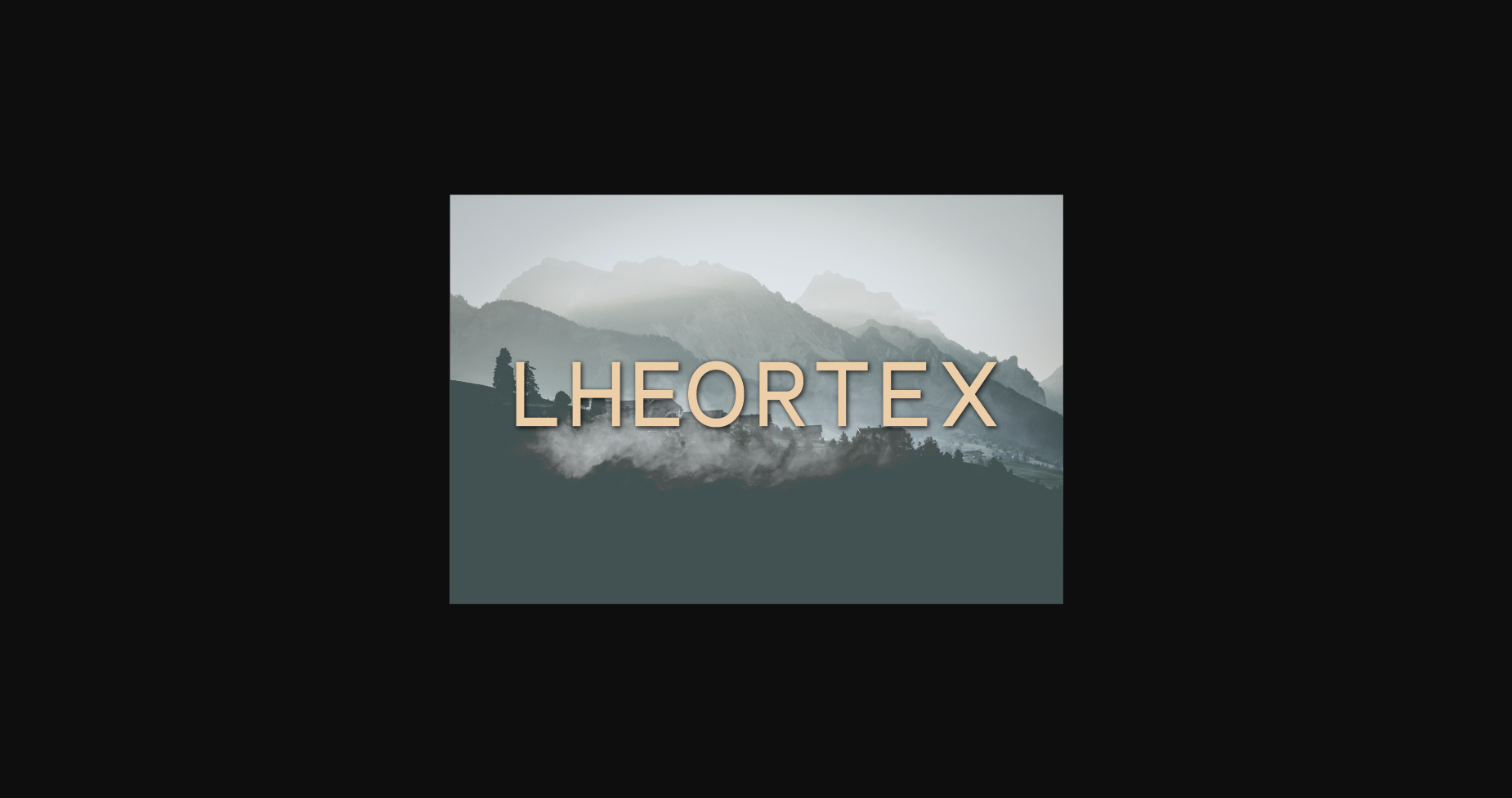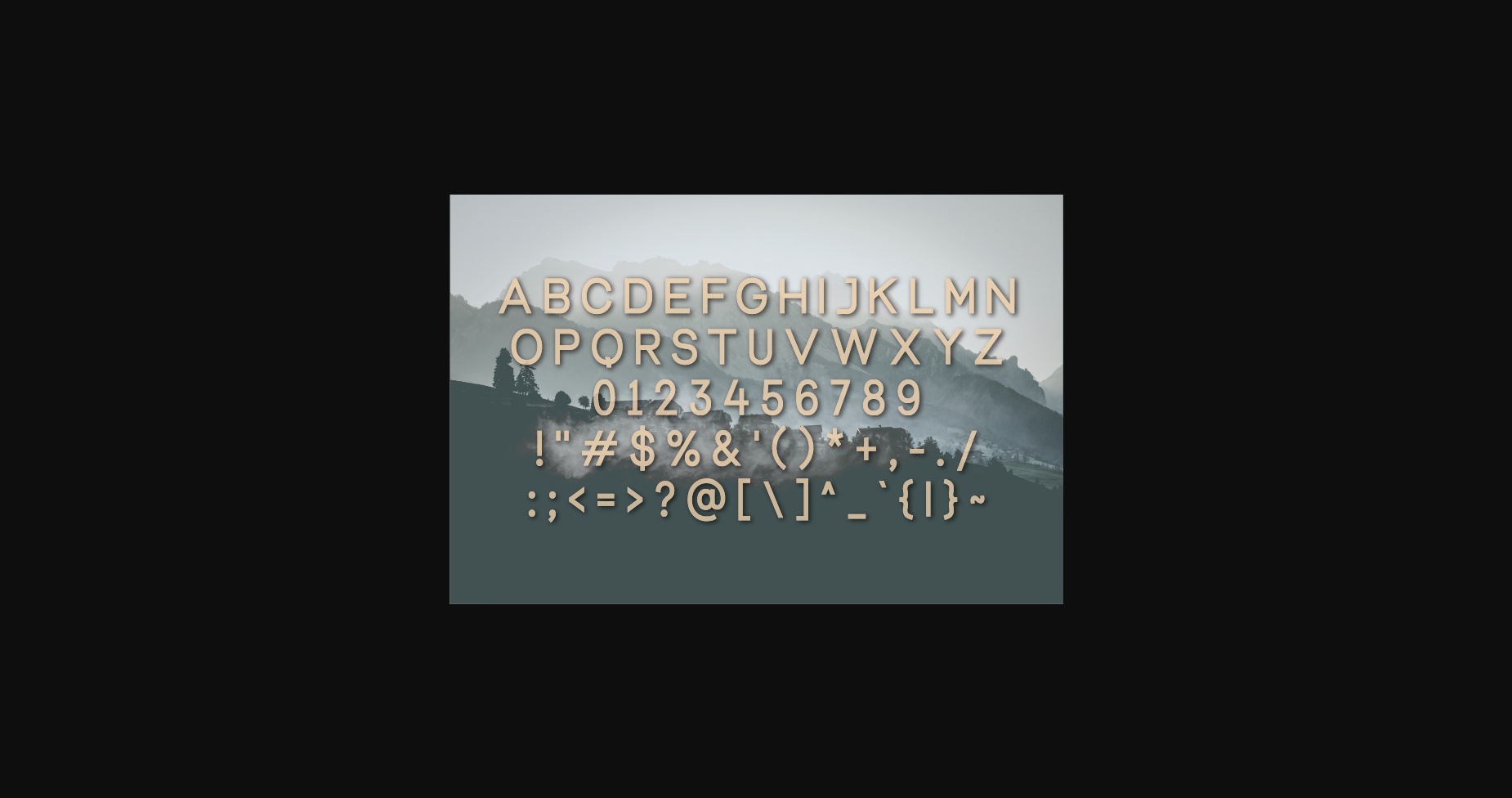
About Lheortex Font
Lheortex is a minimal and neat sans serif font. It can easily be matched to an incredibly large set of projects, so add it to your creative ideas and notice how it makes them stand out!